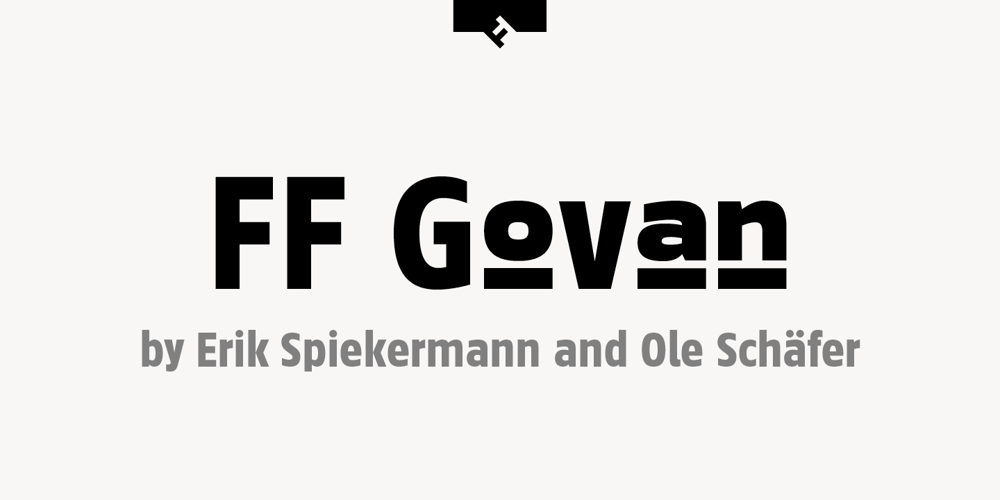
FF Govan Font Family was designed by Ole Schäfer, Erik Spiekermann and published by FontFont. FF Govan contains 3 styles and family package options. German type designers Erik Spiekermann and Ole Schäfer created this sans FontFont in 2001. The family contains 3 weights: Regular, Condensed, and Expanded and is ideally suited for advertising and packaging, film and tv as well as logo, branding and creative industries. FF Govan provides advanced typographical support with features such as ligatures, alternate characters, case-sensitive forms, super- and subscript characters, and stylistic alternates. It comes with proportional lining figures.